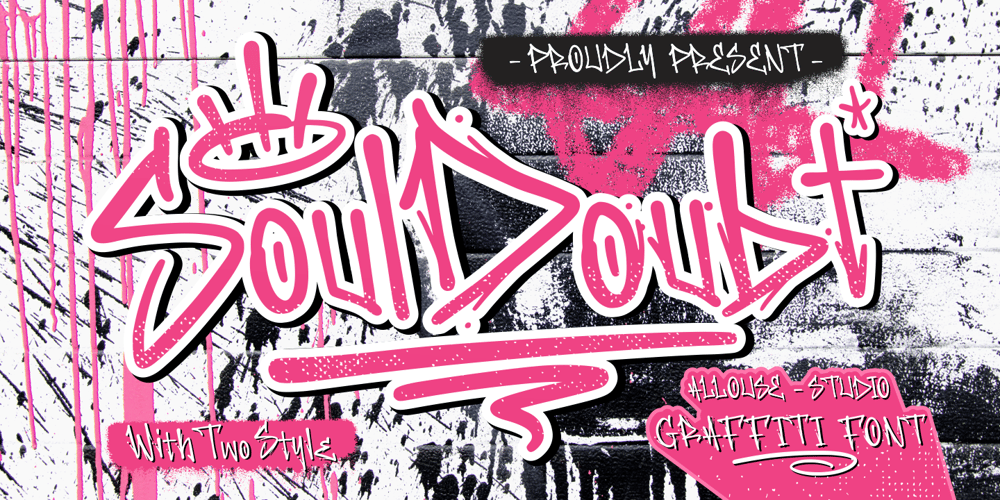
Soul Doubt Font Family was designed by Fachrizal Yusuf and published by Allouse Studio. Soul Doubt contains 2 styles and family package options. Proudly Presenting, Soul Doubt a Graffiti Font with Two Syles.Soul Doubt is perfect for any tittles, logo, product packaging, branding project, megazine, social media, wedding, or just used to express words above the background.Both font come with underline styles and extras, also come with Multi-Lingual Support.Enjoy the font, feel free to comment or feedback, send me PM or email. Thank You!